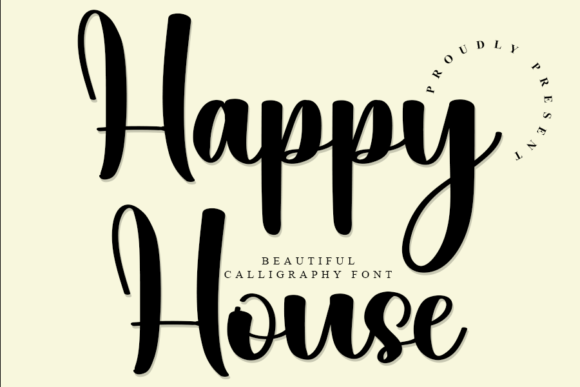
Immerse yourself in the world of Happy House Font, an exceptionally stylish and charming handwritten font that grants your creative projects a distinctive air of refinement and panache. Designed by the talented Inermedia Studio, this font is born from a fusion of classic calligraphy and modern design, giving you an unparalleled fusion of aesthetics and functionality.
With its flowing script style, Happy House Font emanates a sense of grace and elegance, sure to leave a lasting impression on your audience. Its meticulously designed characters exude a sophisticated charm that seamlessly enhances the visual appeal of your designs, whether it's a website, social media post, or any other creative endeavor.
Apart from its intrinsic beauty, Happy House Font also possesses a remarkable level of practicality and user-friendliness. Its script nature makes it an exceptional choice for adding a touch of personalization and authenticity to your digital projects. Whether you're a seasoned designer or a creative enthusiast, Happy House Font is guaranteed to be your go-to font for crafting web designs that cap activate and amaze your audience.
So embark on a journey of creative exploration with Happy House Font, a font that's poised to transform your digital creations into visual marvels that capture hearts and make a statement. Its beauty, elegance, and functionality unite to form an exceptional font that leaves you spellbound from the first stroke.